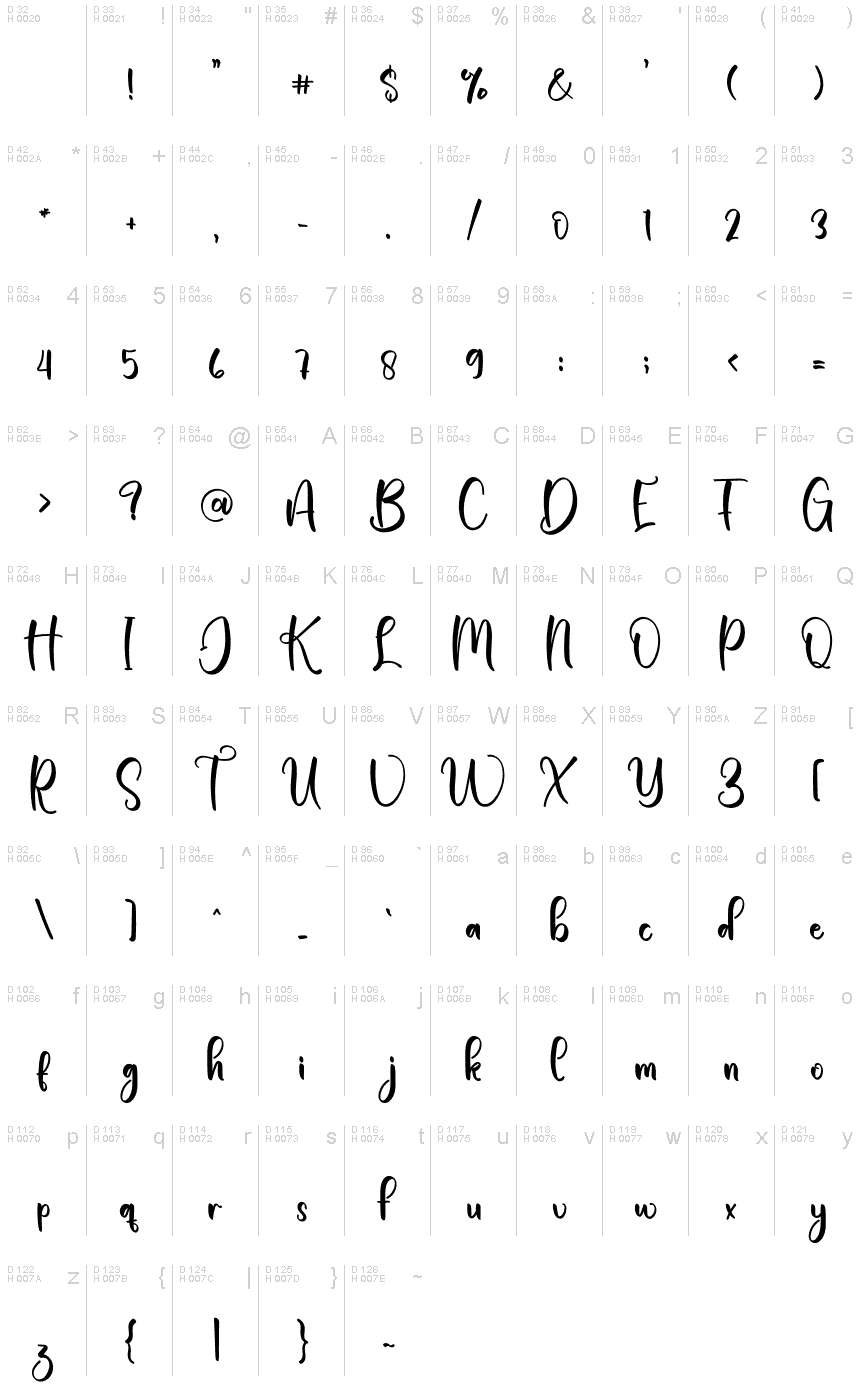
Behind
Behind, a captivating handwritten font designed by Inermedia Studio, adds a touch of elegance and authenticity to any project. With its fluid strokes and unique personality, this font is perfect for adding a personal touch to wedding invitations, greeting cards, and heartfelt letters. Its versatility makes it equally suitable for branding materials such as logos and packaging designs. Whether you're aiming for a nostalgic feel or an artsy vibe, Behind's timeless charm will effortlessly elevate your projects from ordinary to extraordinary. Let this exquisite font be the creative spark that sets your designs apart.